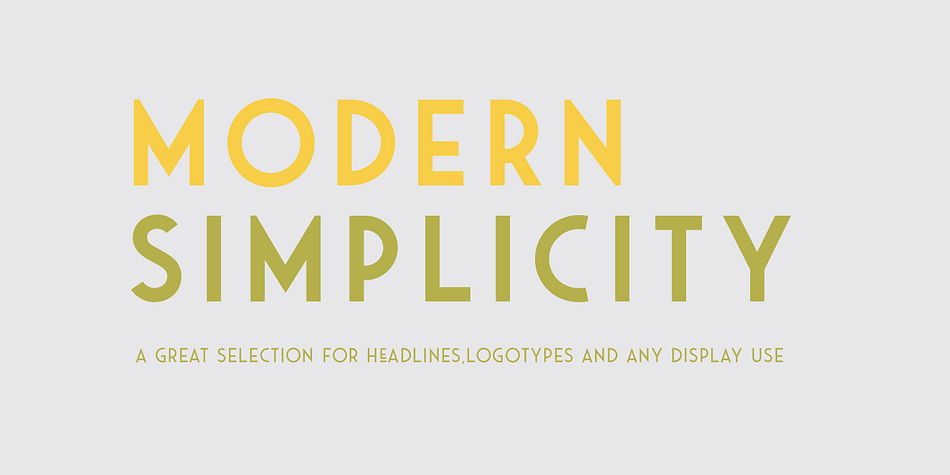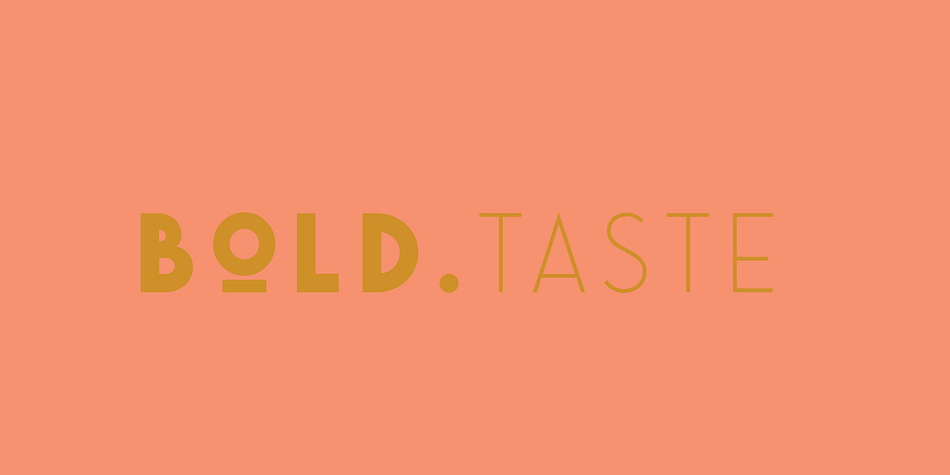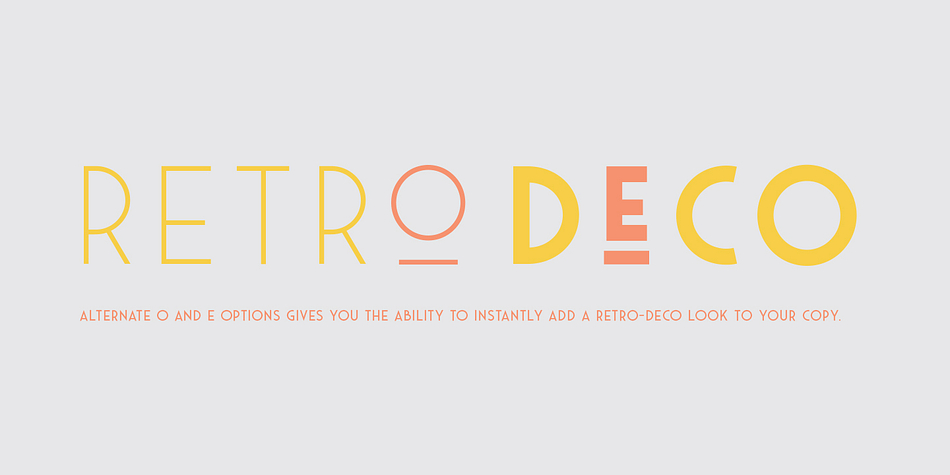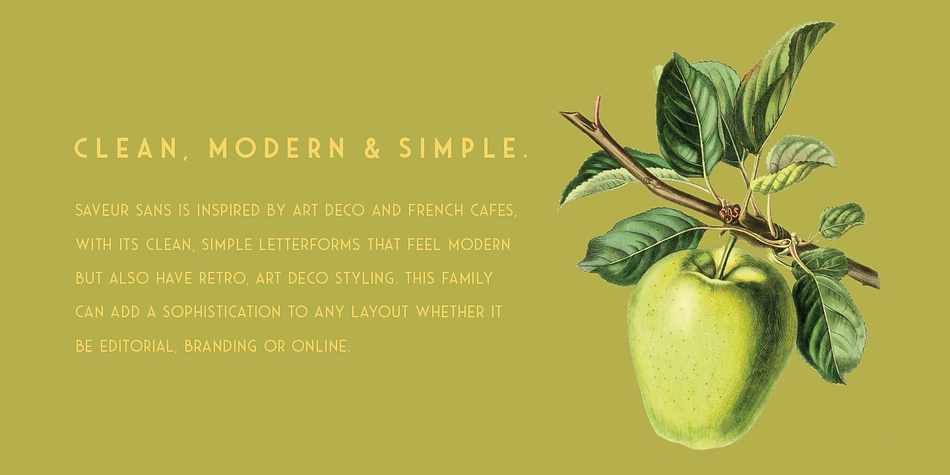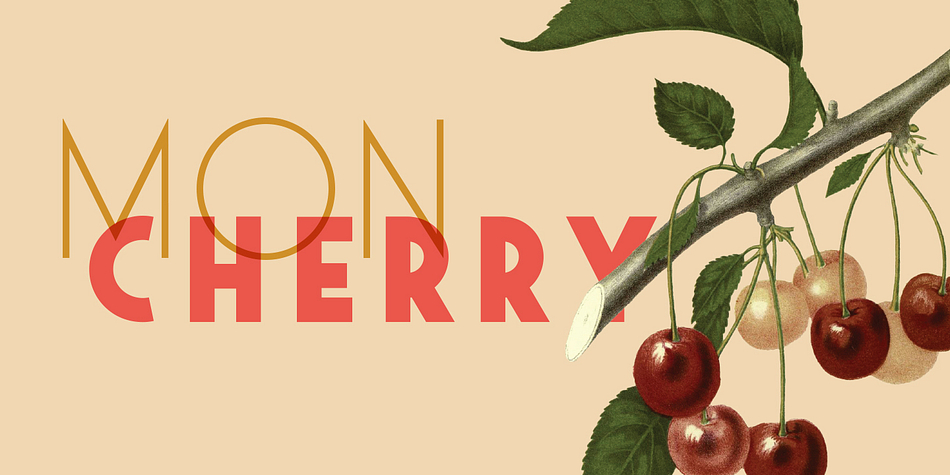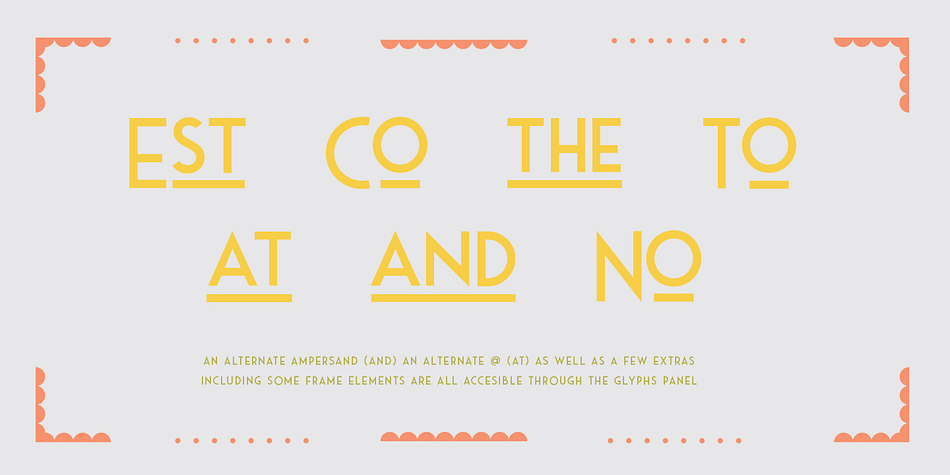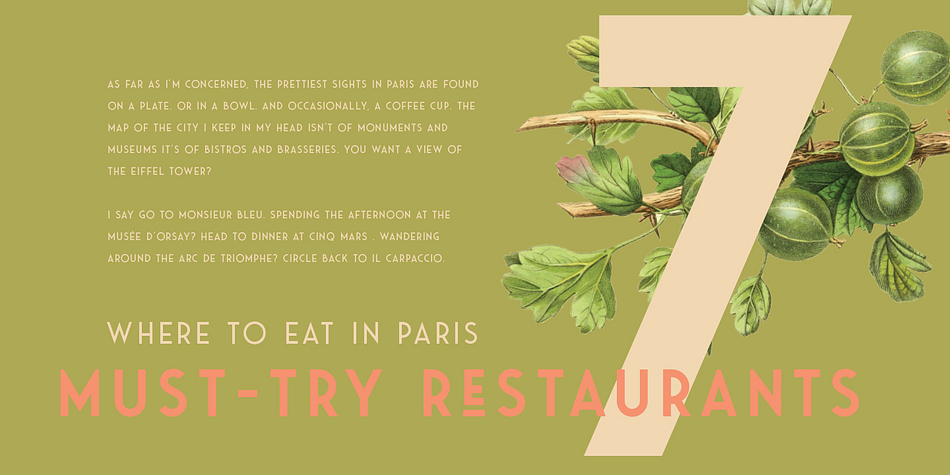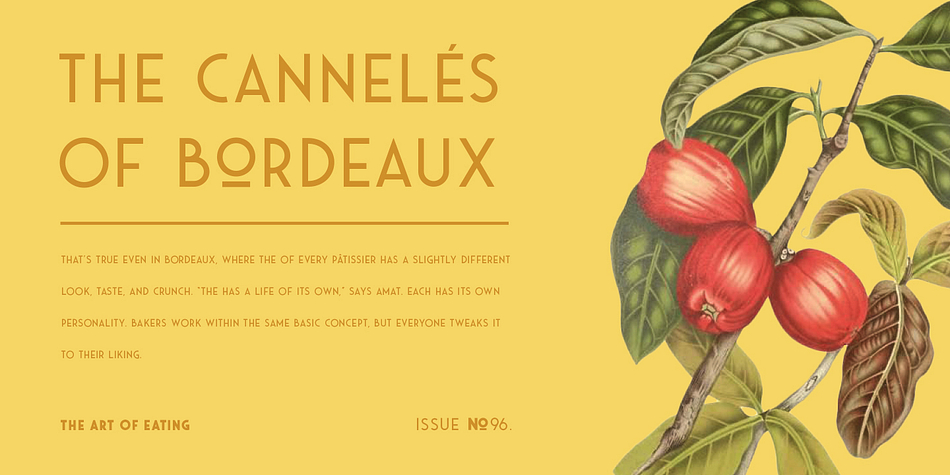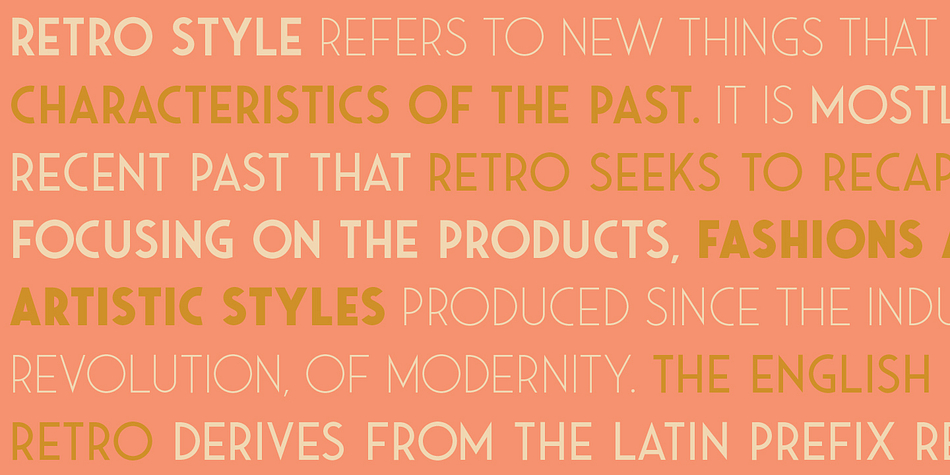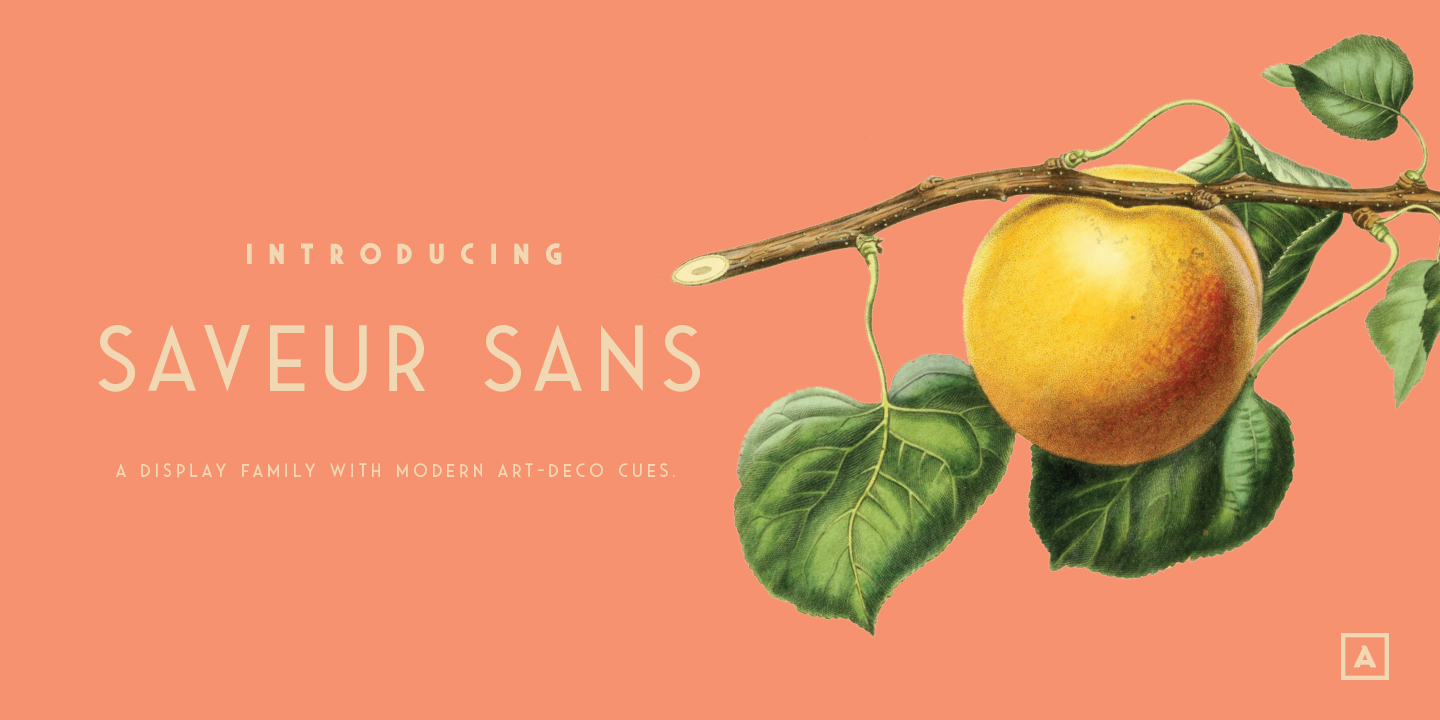
Designed by Andrew Footit, Saveur Sans is a sans serif and art deco font family. This typeface has four styles and was published by Andrew Footit.
Saveur Sans is inspired by art deco and French cafes. This display family has clean, simple letterforms that feel modern but at the same time have a retro, art-deco styling. This family can add a sophistication to any layout whether it be print or online.
Saveur Sans is a great selection for headlines, logotypes, and branding. it is an all-caps display family with some neat alternates including an alternate O and E that instantly give your copy that retro-deco look.
The promos have been inspired by French food and design. This family is perfect for use in packaging and branding of food products as well as menus and restaurant or cafe branding.